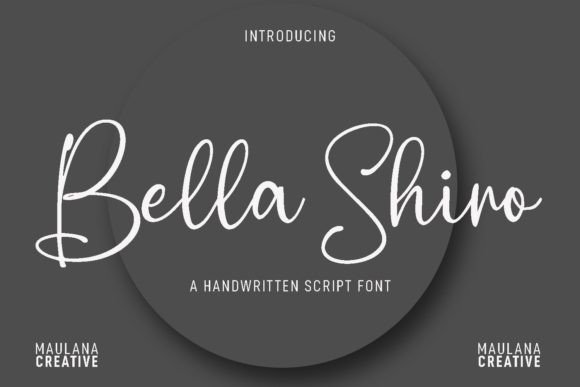
Bella Shiro Font: Elevate Your Design with a Touch of Femininity
In the world of typography, fonts play a crucial role in conveying the tone and personality of a brand or design. Among the numerous fonts available, Bella Shiro stands out as a beautiful, modern signature script font that can add a touch of elegance and sophistication to any design project. In this article, we’ll explore the features and benefits of Bella Shiro font and how it can be used to create stunning works of art.
What is Bella Shiro Font?
Bella Shiro is a feminine modern signature script font designed to bring a touch of elegance and whimsy to your designs. Its light contrast ink-is stroke, fun character, and ligature and alternates features make it an excellent choice for creative projects. The font’s unique blend of modernity and classic script style makes it perfect for a wide range of applications, from logo design to movie titles, book titles, and social media graphics.
Key Features of Bella Shiro Font
- Feminine and Modern: Bella Shiro boasts a unique blend of feminine charm and modern style, making it perfect for designs that require a touch of elegance.
- Light Contrast Ink-is Stroke: The font’s light contrast ink-is stroke feature adds a level of sophistication and refinement to your designs.
- Fun Character with Ligature and Alternates: Bella Shiro’s fun character, ligature, and alternates features allow you to add a creative twist to your designs and make them more visually appealing.
- Versatile: This font is suitable for a wide range of applications, including logo design, social media graphics, movie titles, book titles, and more.
Use Cases for Bella Shiro Font
Bella Shiro font is an incredibly versatile font that can be used in various design projects. Here are some of the most popular use cases:
1. Logo Design
Bella Shiro font is an excellent choice for logo design, especially for brands that want to convey a sense of elegance and sophistication. Its unique and stylish design makes it perfect for creating memorable logos that stand out.
2. Social Media Graphics
With Bella Shiro font, you can create stunning social media graphics that grab attention and engage your audience. Its fun and feminine design makes it perfect for social media posts, Instagram stories, and more.
3. Movie Titles and Book Titles
Bella Shiro font is also suitable for movie titles and book titles. Its elegant and refined design makes it perfect for creating eye-catching titles that reflect the tone and personality of your content.
4. Secondary Text Font
Bella Shiro font can also be used as a secondary text font, paired with sans or serif fonts to add a touch of elegance and sophistication to your designs.
Benefits of Using Bella Shiro Font
Using Bella Shiro font in your design projects offers numerous benefits. Here are some of the most significant advantages:
1. Unique and Memorable Designs
Bella Shiro font allows you to create unique and memorable designs that stand out from the crowd. Its stylish and elegant design makes it perfect for creating designs that leave a lasting impression.
2. Time-Saving
With Bella Shiro font, you can save time and effort in creating designs from scratch. Its pre-designed characters and ligatures make it easy to create stunning designs in no time.
3. Versatility
Bella Shiro font is incredibly versatile, making it suitable for a wide range of design projects. Its flexibility allows you to use it in various contexts, from logo design to social media graphics.
4. Easy to Read
Bella Shiro font is designed to be easy to read, even in small sizes. Its clear and refined design makes it perfect for creating designs that require a high level of legibility.
Tips for Using Bella Shiro Font
To get the most out of Bella Shiro font, here are some tips to keep in mind:
1. Pair it with Sans or Serif Fonts
Pair Bella Shiro font with sans or serif fonts to create a harmonious and balanced design.
2. Use it for Headings and Titles
Bella Shiro font is perfect for headings and titles. Use it to create eye-catching headings that grab attention.
3. Experiment with Ligatures and Alternates
Take advantage of Bella Shiro font’s ligatures and alternates features to add a creative twist to your designs.
4. Use it for Branding and Identity
Bella Shiro font is perfect for branding and identity design. Use it to create memorable logos and brand identities that stand out.
Bella Shiro font is a stunning, modern signature script font that can elevate your designs to the next level. Its unique blend of femininity and modernity makes it perfect for a wide range of design projects, from logo design to social media graphics. With its versatility, ease of use, and stylish design, Bella Shiro font is an excellent choice for designers looking to create memorable and engaging designs.